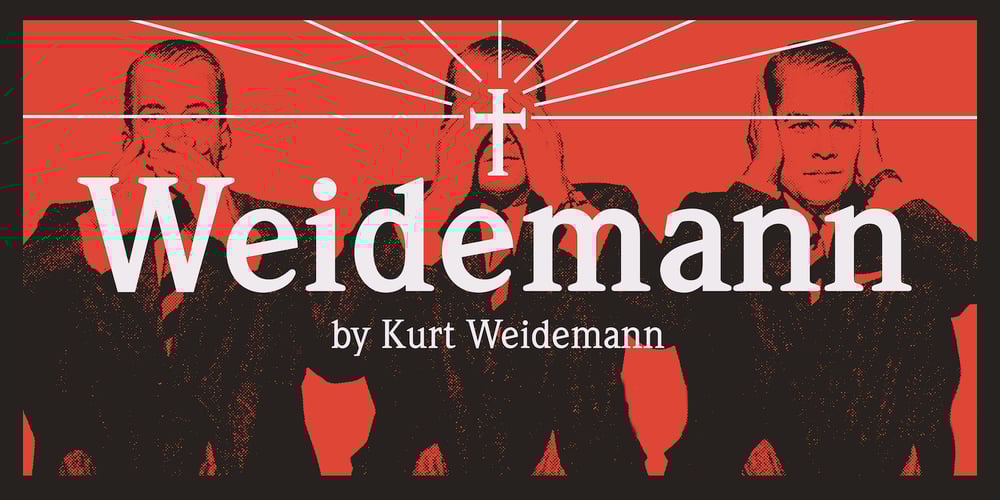
ITC Weidemann Font Family was designed by Kurt Weidemann and published by ITC. ITC Weidemann contains 8 styles and family package options. The Weidemann typeface’s original name was Biblica, which was designed for the collaborative publication of a Bible by the German Catholic and Protestant Churches. The mass of text which the face was intended to set required that the design allow many characters to fit onto one line without rendering the words illegible. Thus, narrow spacing does not compromise the legibility or the elegance of Weidemann.